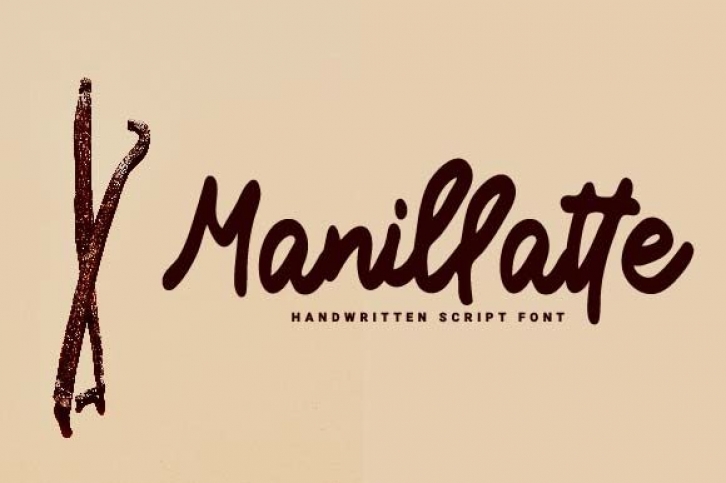
Manillatte is a bold and flowing handwritten font. Clean and a little bit quirky, this font is the perfect fit for all of your logos, branding, social media, and crafty DIY projects.